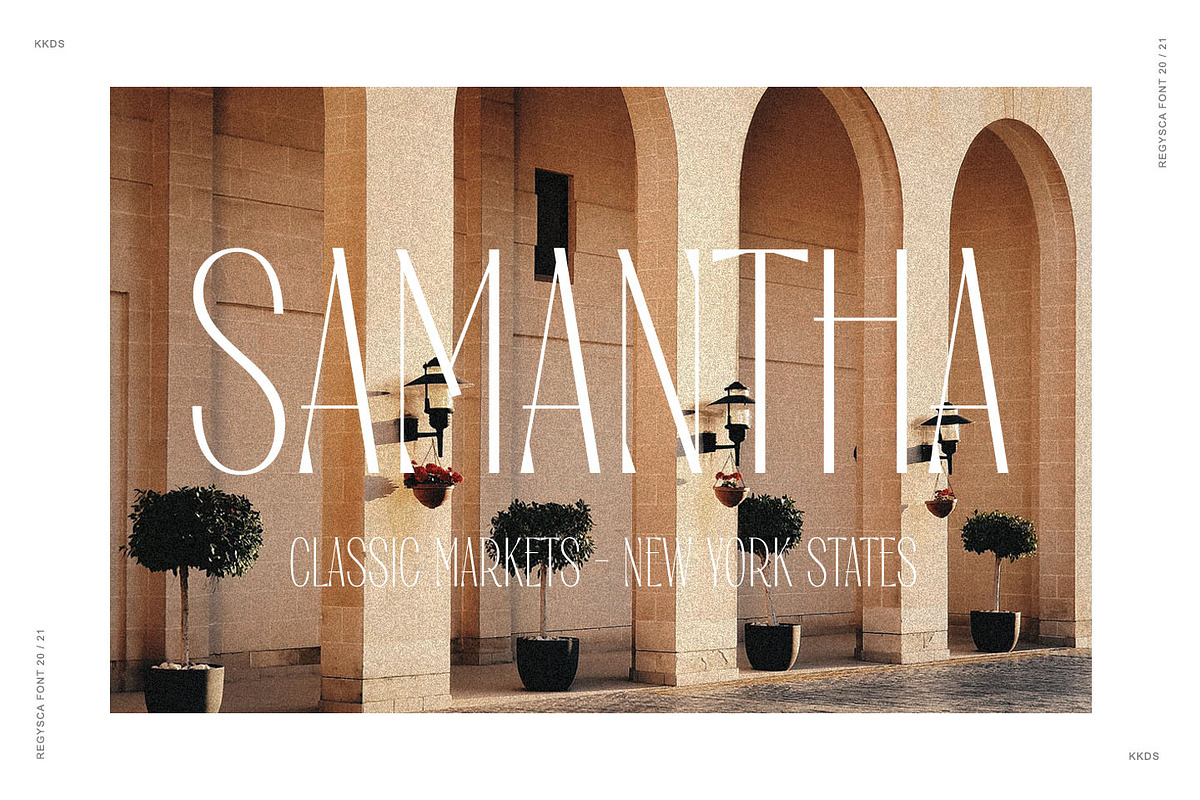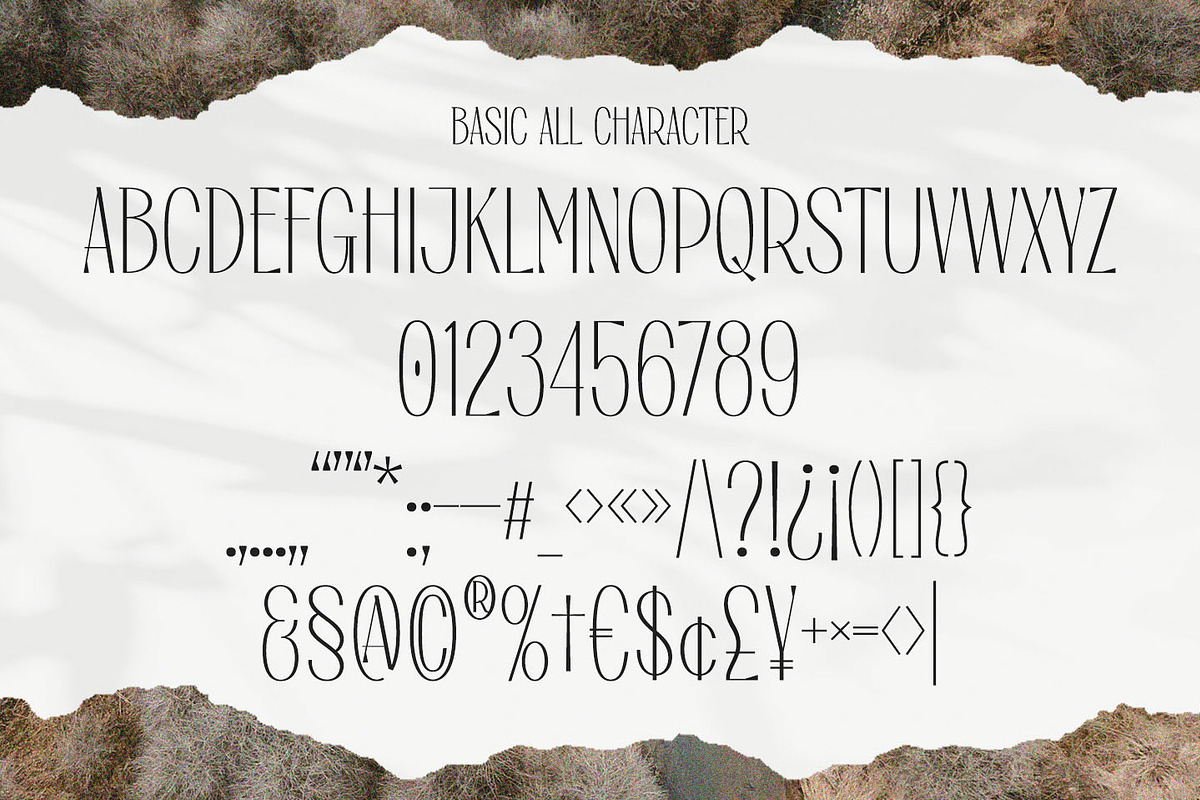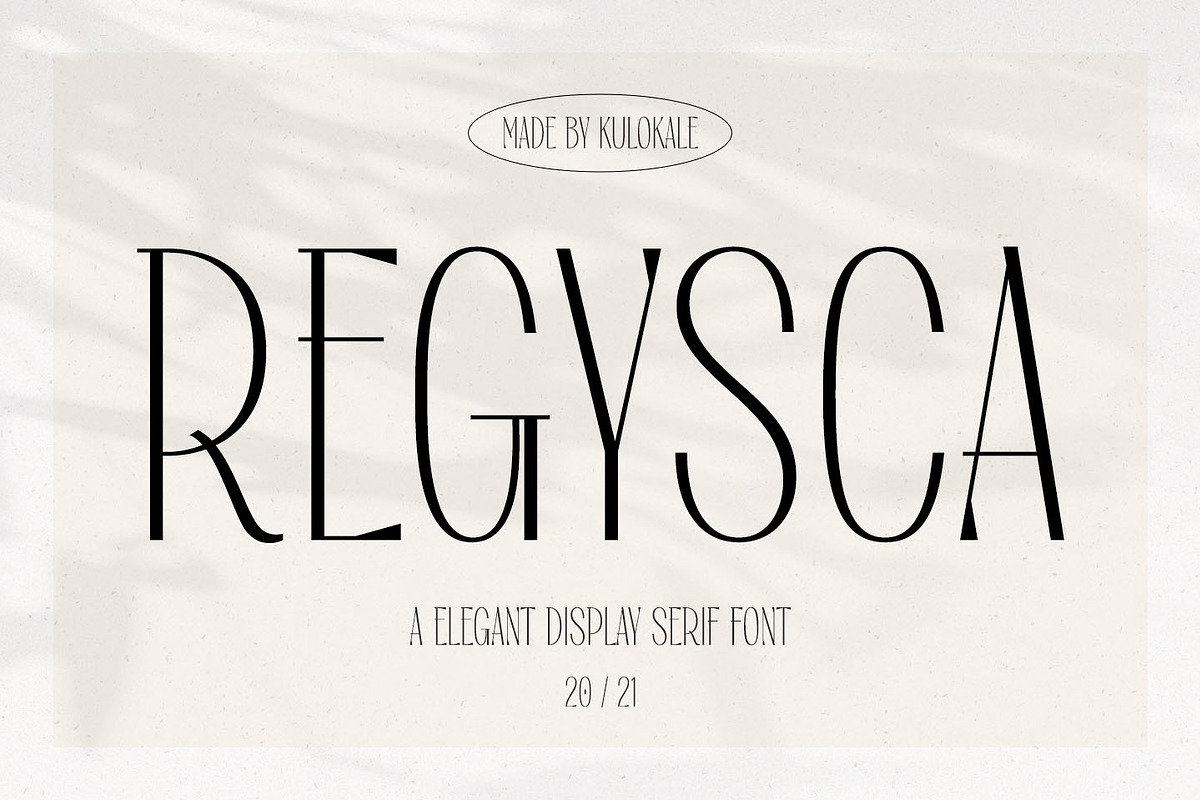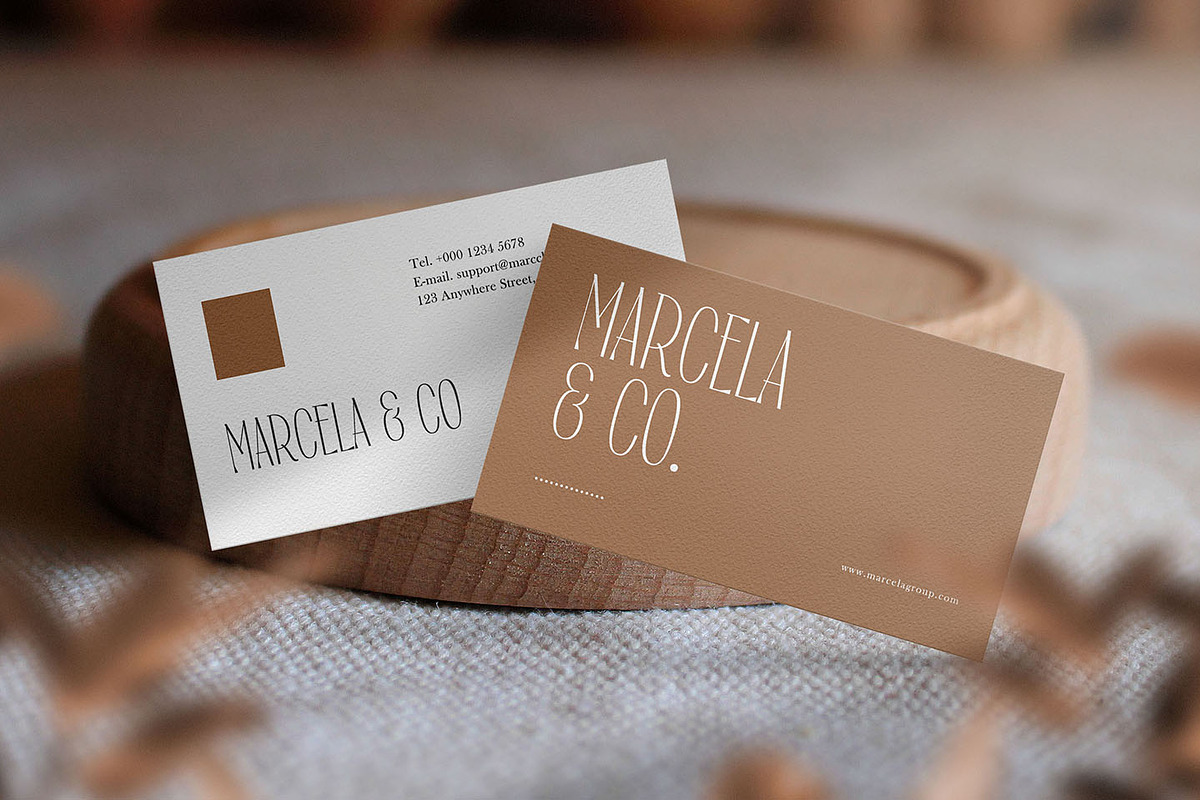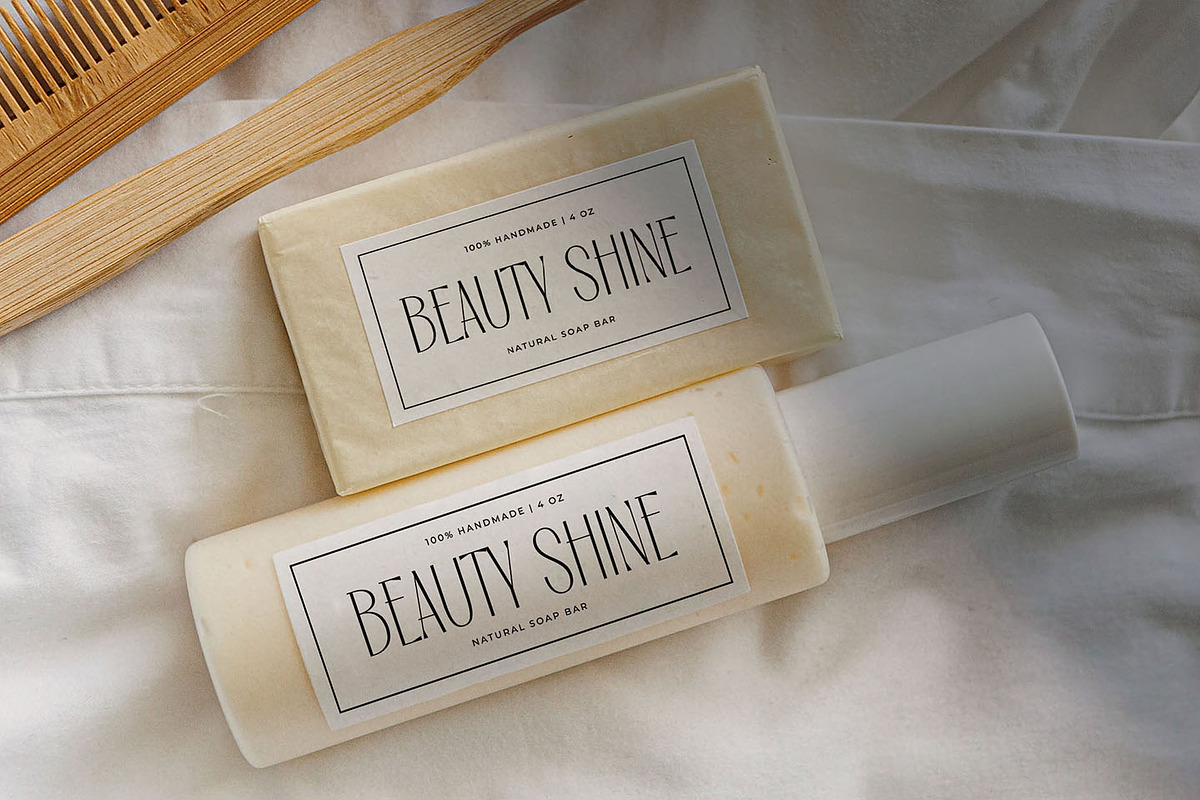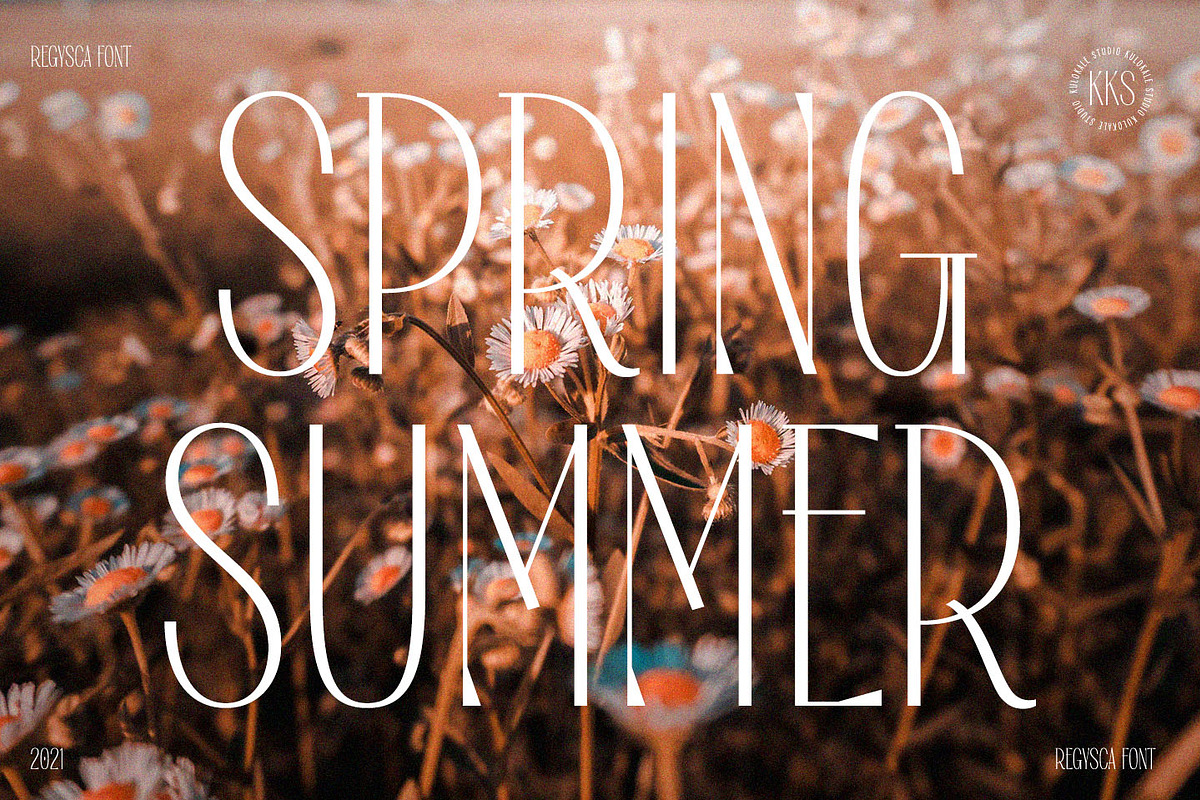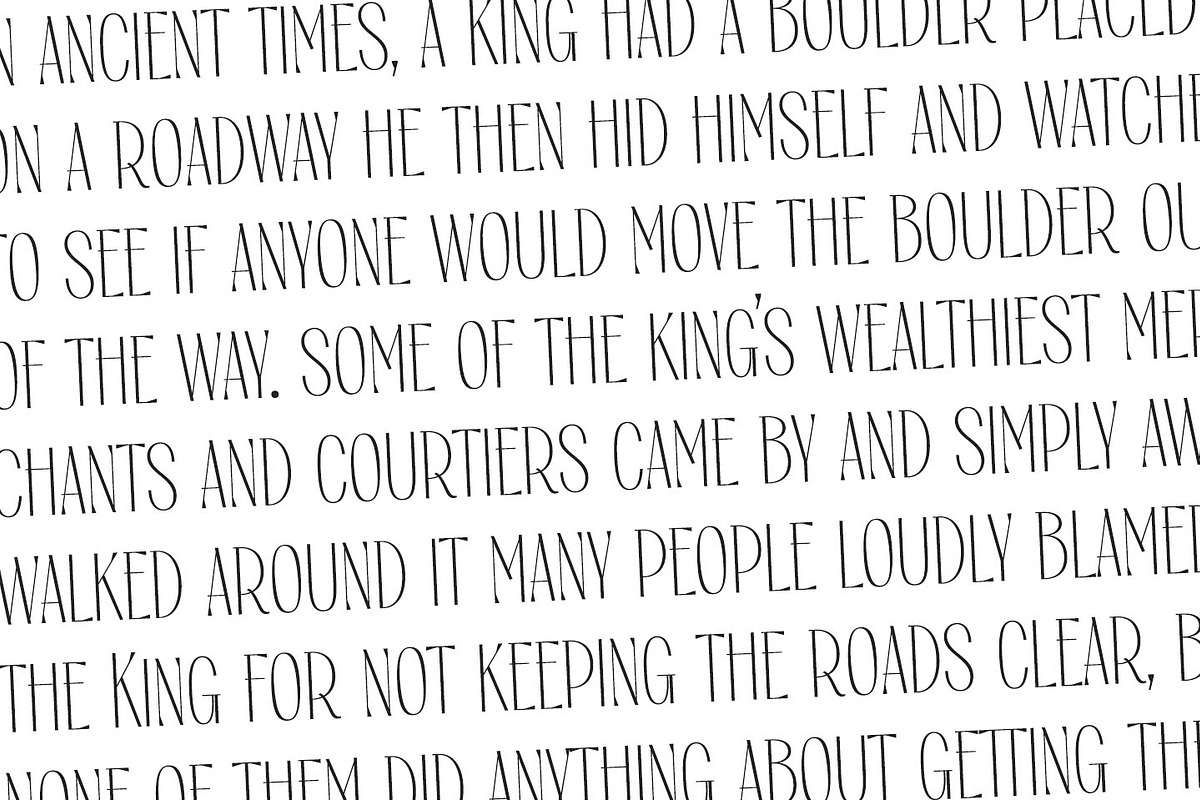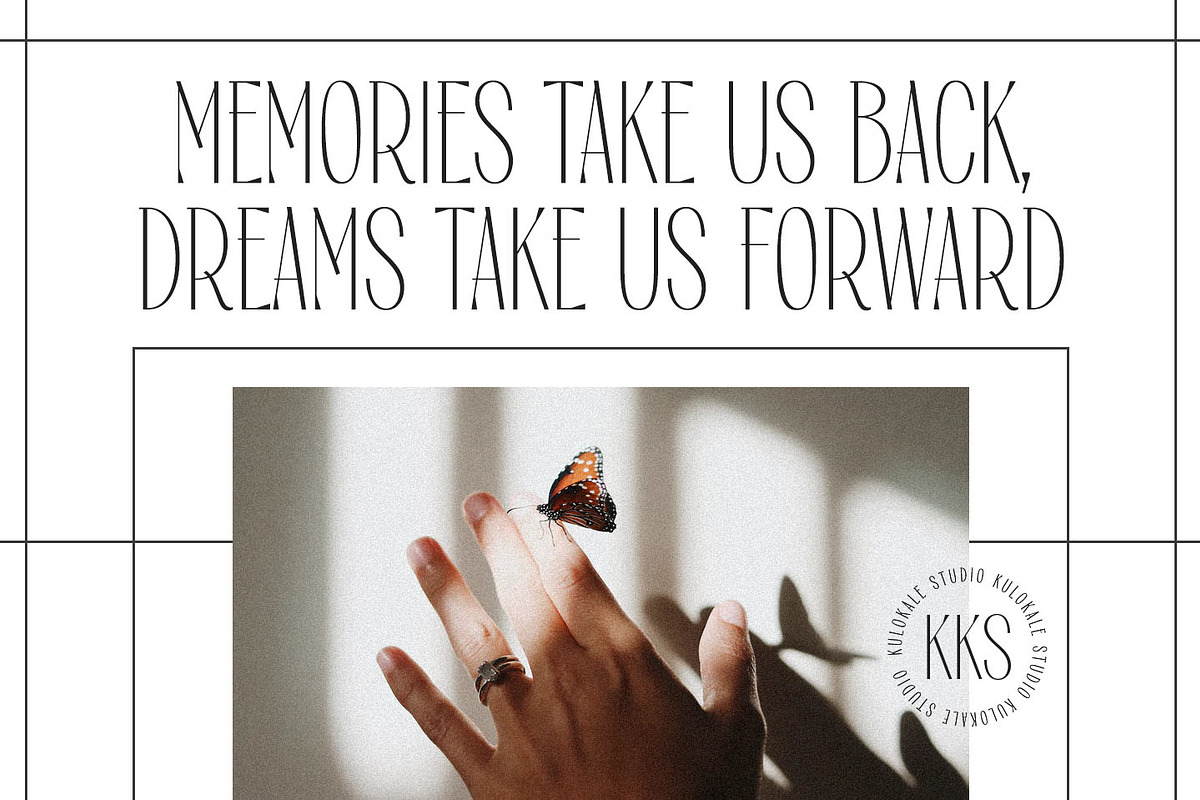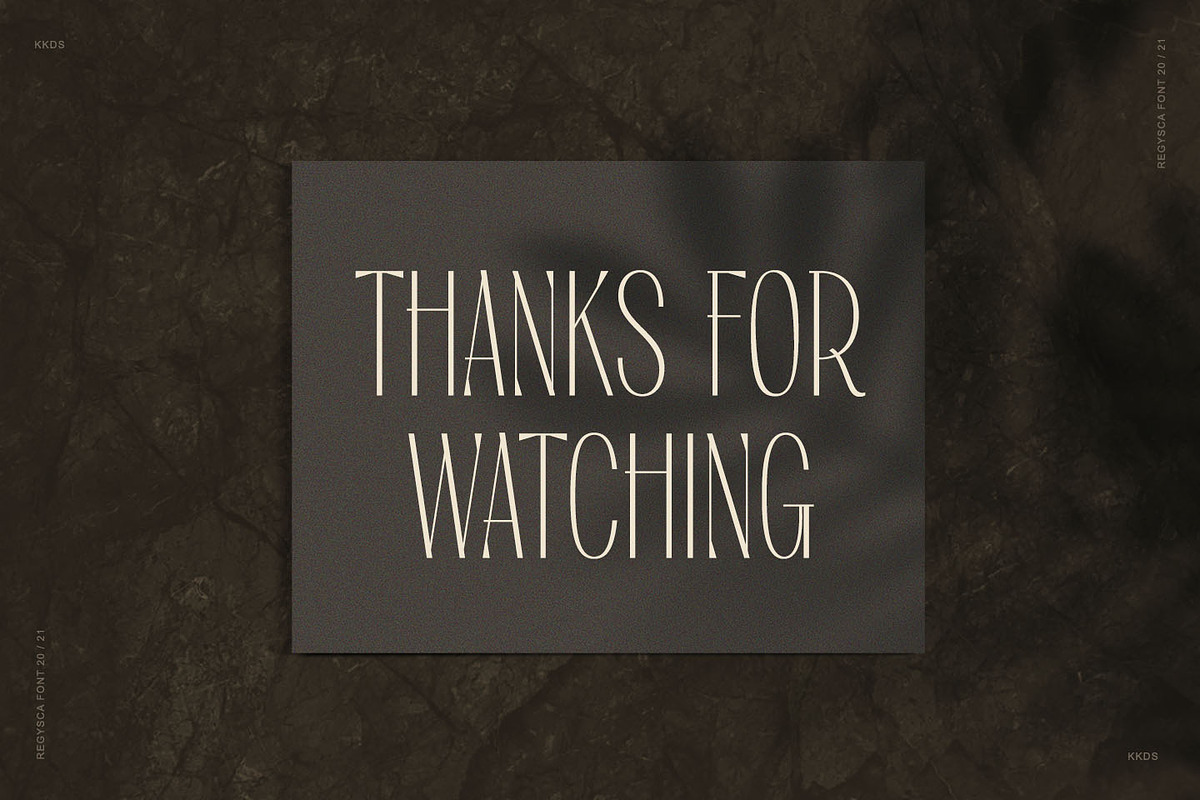
Regysca Elegant Modern Serif Font
Regysca is a modern and elegant serif font. Regysca is well-suited for advertising, branding, logotypes, packaging, titles, headlines and editorial design. This font comes in two styles, Regular and Oblique Version.